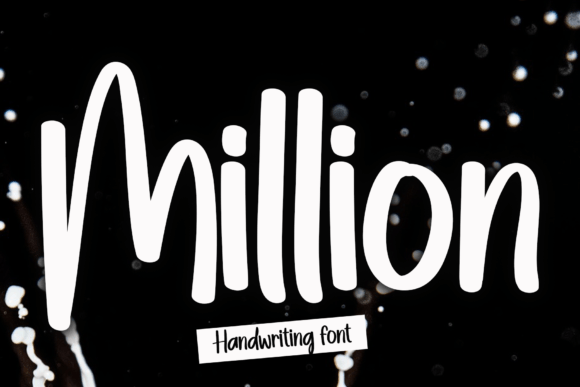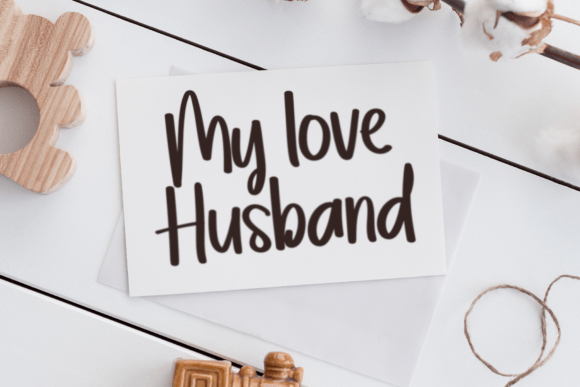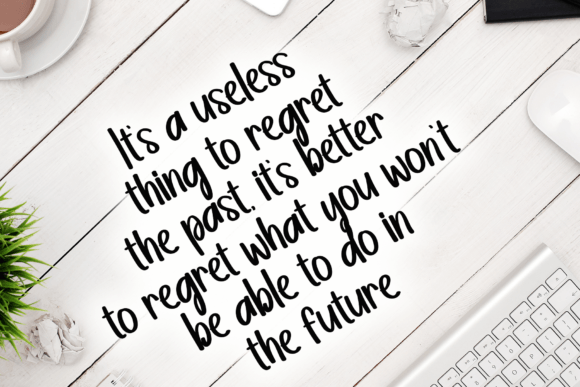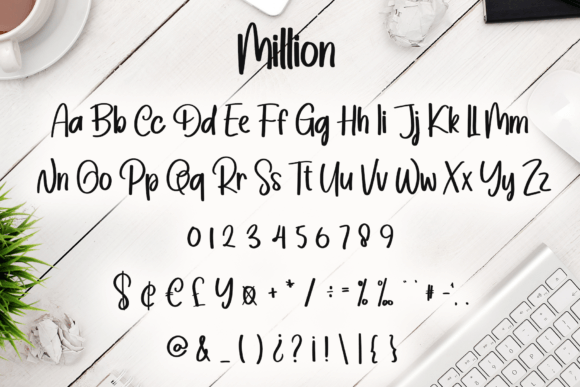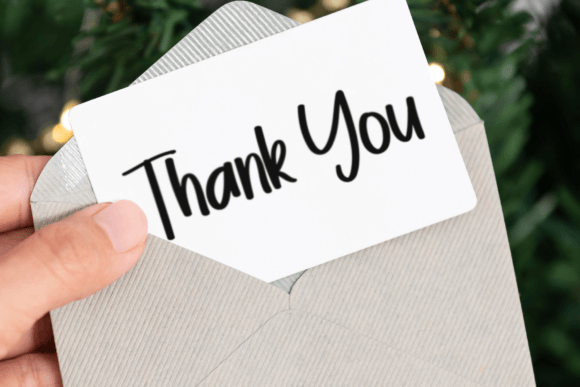
Million Font
Million Font: Friendly Handwriting for Playful Designs
“Million” is a fun and friendly handwritten font that infuses your projects with a playful and approachable vibe. It’s perfect for various creative endeavors, adding a touch of warmth to your designs.
Key Features of Million Font
• Friendly Style: Million brings a warm and inviting feel to designs.
• Versatile Use: Suitable for many projects, from digital content to branding.
• Playful Character: Adds a touch of joy and creativity to typography.
Digital Content and Social Media
Million’s friendly style is ideal for creating engaging social media graphics and digital content that connects with audiences.
Use Million to design approachable logo designs and branding materials that convey a friendly image.
Greeting Cards and Invitations
The font’s fun nature makes it perfect for creating charming greeting cards and invitations.
Why Choose Million Font?
Million offers more than just friendly letters. Here’s why it stands out:
• Enhances designs with a sense of joy and creativity
• Creates an inviting and captivating atmosphere in typography
• Adapts well to various design themes and projects
By using Million, you open up new design possibilities. Its playful style works well in many contexts, from poster designs to website headers. The font’s ability to convey warmth can inspire creative ideas and help you approach projects from a fresh, approachable perspective.
Million in Modern Design Trends
This font aligns perfectly with design trends that favor authenticity and personal touch. Its handwritten style adds a unique quality that resonates with audiences seeking genuine connections, making it particularly effective for brands targeting a friendly, approachable image.
If you’re looking for a font that’s both fun and versatile, Million is an excellent choice. It’s perfect for adding a touch of playfulness to your work, especially for projects that need a friendly, inviting feel.
Explore how Million can transform your designs. From branding projects to personal creations, this font brings a joyful and engaging quality to your work.